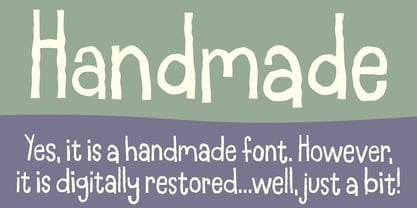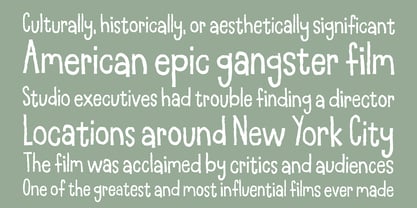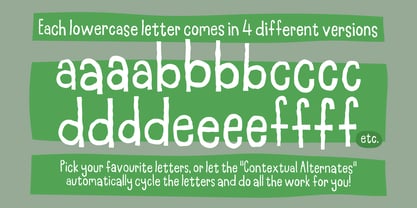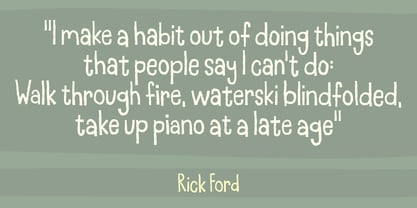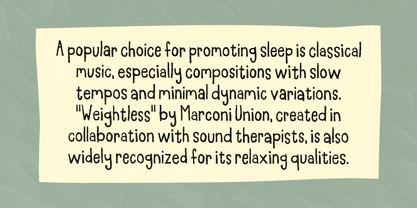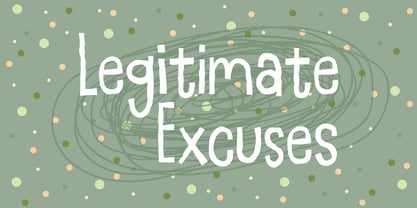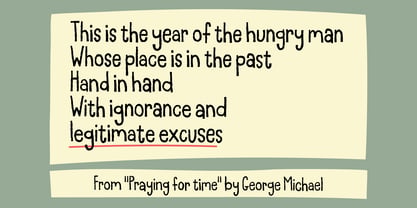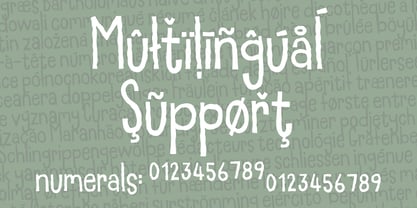
Legitimate Excuses
von Bogstav
Die Schriftfamilie Legitimate Excuses wurde von Jakob Fischer entworfen und von Bogstav veröffentlicht. Legitimate Excuses enthält 2 Stile und Familienpaketoptionen. Mehr über diese Familie
Shaky, yet legible! Legitimate Excuses is my organic and handmade sans - suitable for anything that needs a clear, legible and obvious handmade look. Comes with 4 different versions of each lower-case letter!
Designer: Jakob Fischer
Foundry: Bogstav